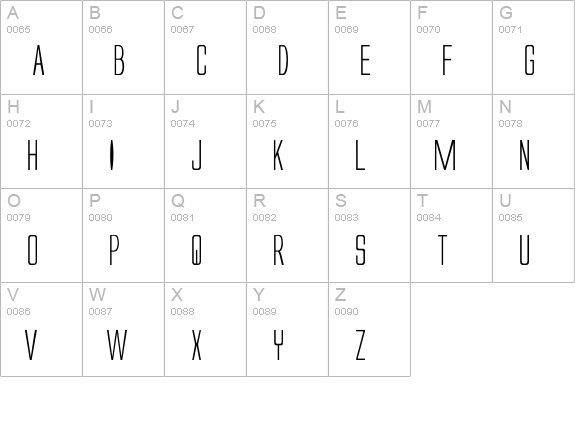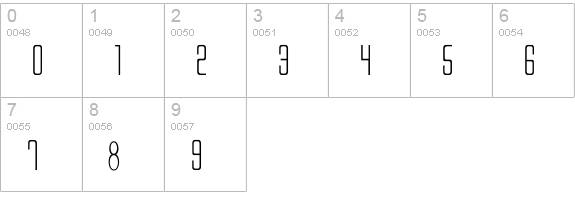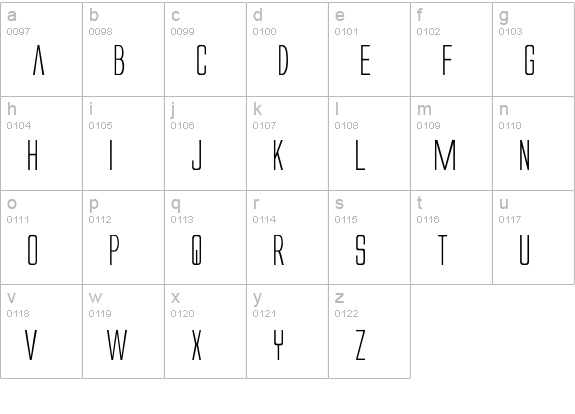
Introducing Alien League font, a futuristic and otherworldly typeface that will transport your designs to a whole new dimension. With its sleek lines and unique design elements, Alien League is perfect for projects that require a touch of extraterrestrial flair. Whether you're working on a sci-fi movie poster, a space-themed website, or a futuristic branding project, this font will add a sense of mystery and intrigue. The best part? Alien League is completely free to download at FontsMarket.com. That's right, you can get your hands on this captivating font without spending a dime. Don't miss out on the opportunity to enhance your designs with this eye-catching typeface. Download Alien League today and let your creativity soar to new heights.